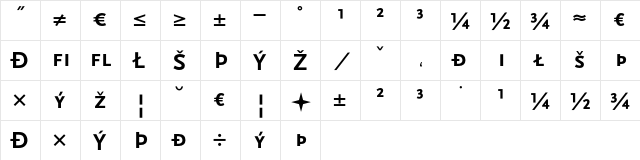
Scala Sans Bold Exp SC
Design Context for Scala Sans Typeface
Scala Sans takes a measured approach to typography — its balanced proportions and neutral character make it a reliable workhorse for both digital and print work. Its bold stroke weight gives it real presence on the page.